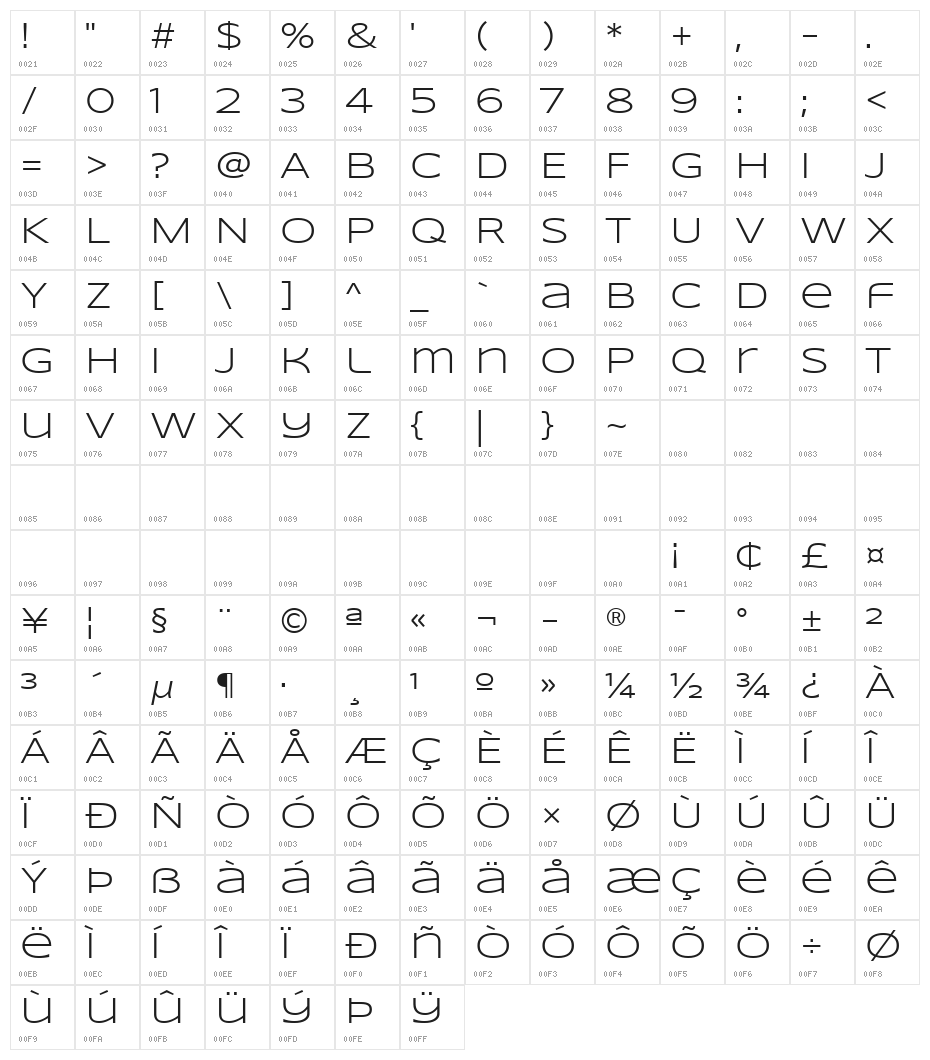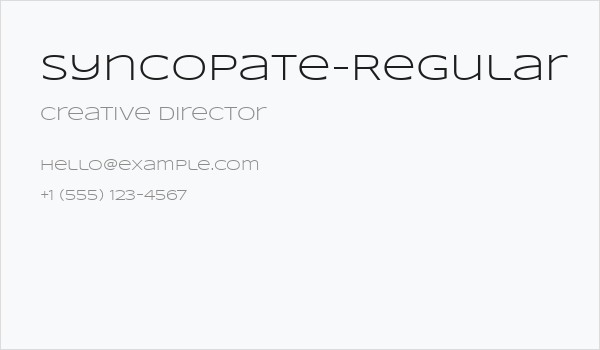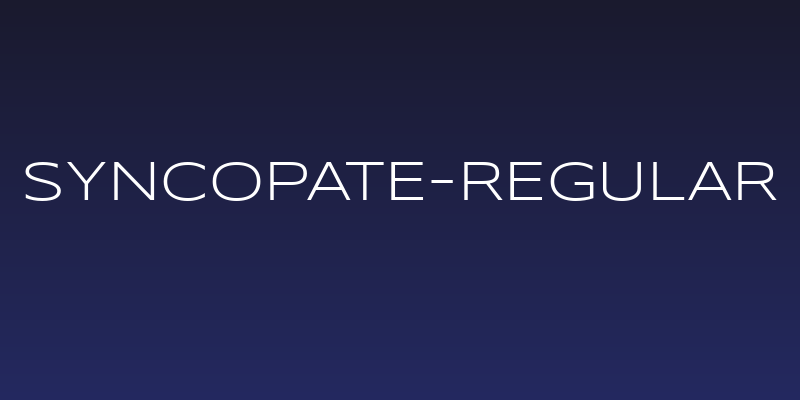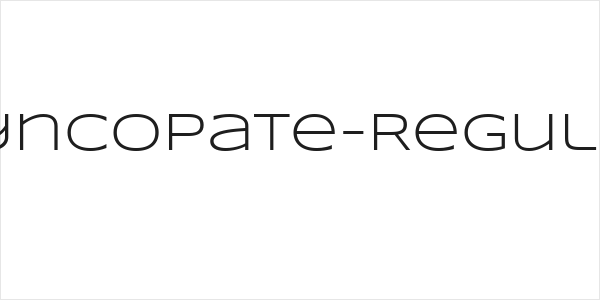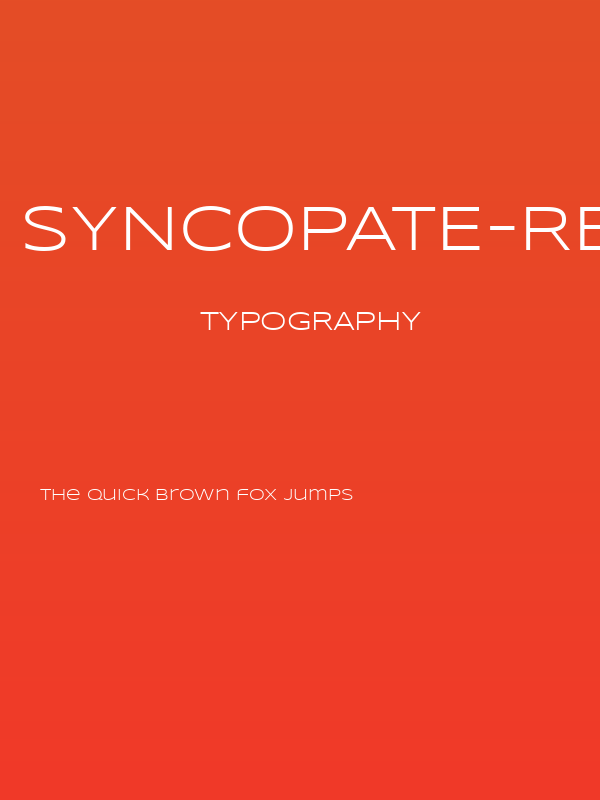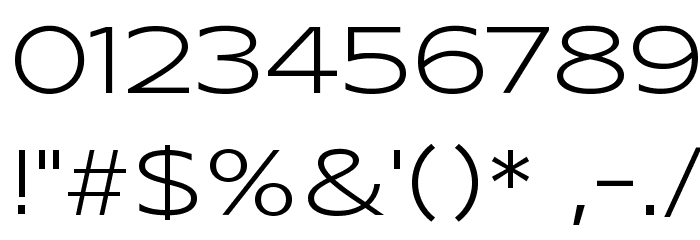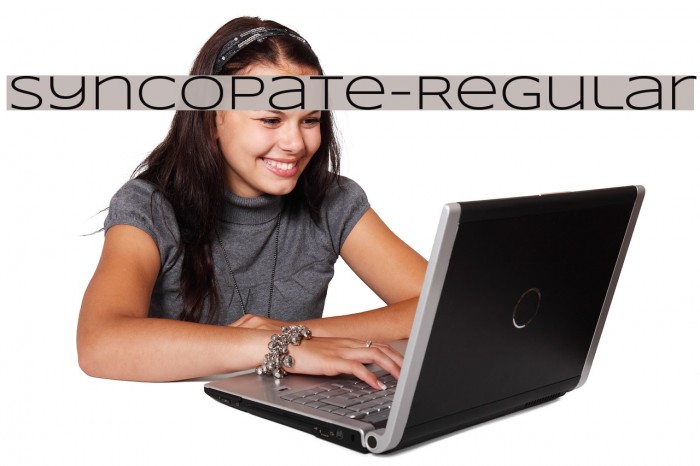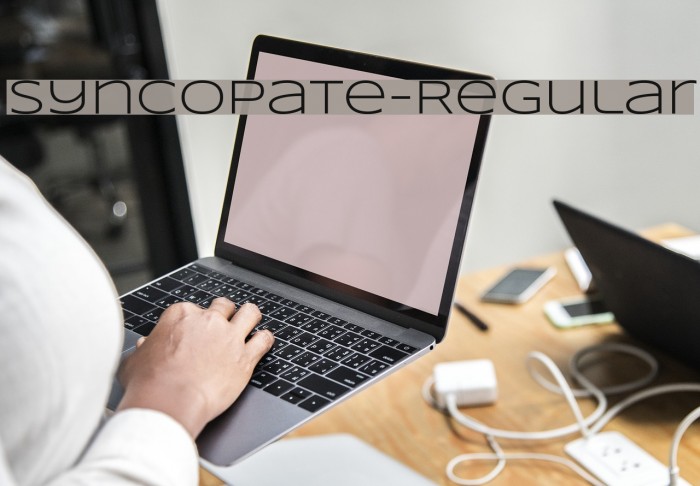
Syncopate-Regular Font
Syncopate-Regular Description
This typeface features a clean and modern aesthetic with a geometric structure. The characters are crafted with a uniform stroke width, providing a balanced and harmonious appearance. The uppercase letters are bold and assertive, while the lowercase letters maintain a consistent style, enhancing readability. The numerals are straightforward and align well with the overall design, making them suitable for various applications. The special characters are distinct and integrate seamlessly with the rest of the font, ensuring versatility in usage. Its simplicity and clarity make it ideal for contemporary design projects.
| Use Case | Headlines, Body text, Logos |
| Proposed Projects | Ideal for branding, digital interfaces, advertising, and editorial design. |